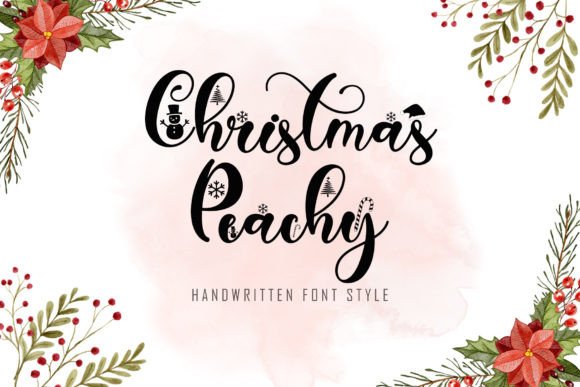
Unleash the Festive Spirit with Christmas Peachy: A Handwritten Font for a Joyous Holiday Season
In the enchanting realm of typography, where words dance and letters sing, there lies a font that captures the very essence of holiday cheer – Christmas Peachy. This captivating handwritten font, crafted by the talented yogaletter6, is not merely a collection of characters; it's a gateway to a world of festive delights.
Christmas Peachy dances across your screen like a flurry of snowflakes, each letter a unique ornament, adorned with intricate details and playful flourishes. Its elegant strokes, reminiscent of a child's joyous scribbles, evoke a sense of nostalgia and warmth, transporting you to a winter wonderland where dreams come true.
With Christmas Peachy, your holiday designs will radiate an aura of enchantment. Its charming personality transforms ordinary words into enchanting messages, perfect for conveying heartfelt greetings, warm wishes, and tales of yuletide joy. Whether you're creating Christmas cards, festive posters, or social media graphics, this font will lend an air of magic to your creations.
Imagine the sparkle in your loved ones' eyes as they receive a heartfelt Christmas card adorned with Christmas Peachy's whimsical letters. Picture the smiles on their faces as they read your heartfelt message, enveloped in the warmth of this festive font.
Beyond its aesthetic appeal, Christmas Peachy is a versatile font that caters to a myriad of design needs. Its playful nature lends itself perfectly to children's books,絵本, and whimsical illustrations, while its elegant touches make it suitable for wedding invitations, holiday menus, and heartfelt letters.
Christmas Peachy is more than just a font; it's an experience. It's a way to infuse your designs with the magic of the holiday season, to create memories that last a lifetime. Its enchanting characters will add a touch of sparkle to your projects, spreading joy and cheer wherever they go.